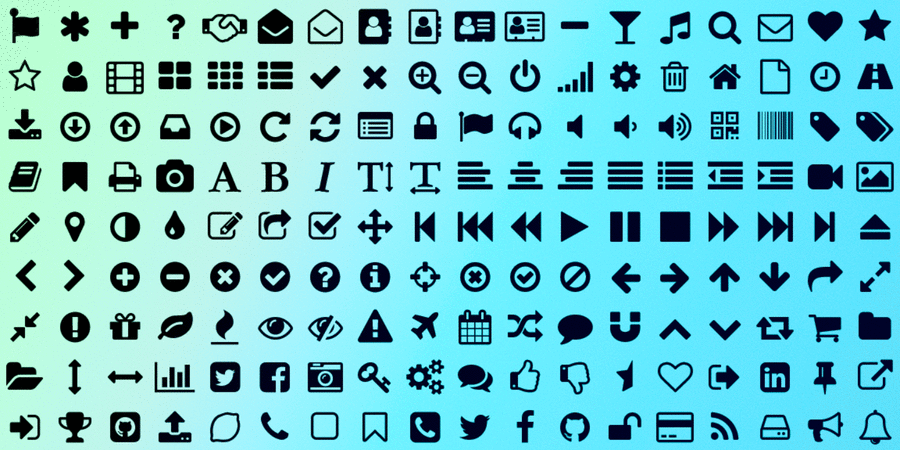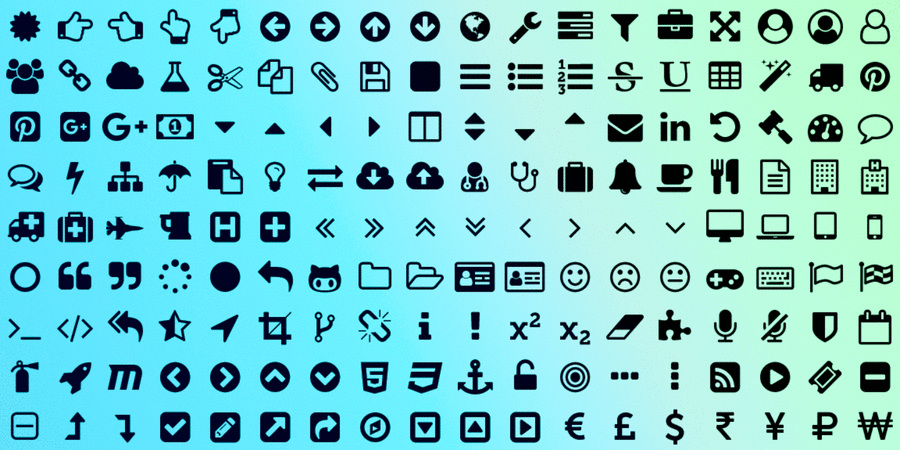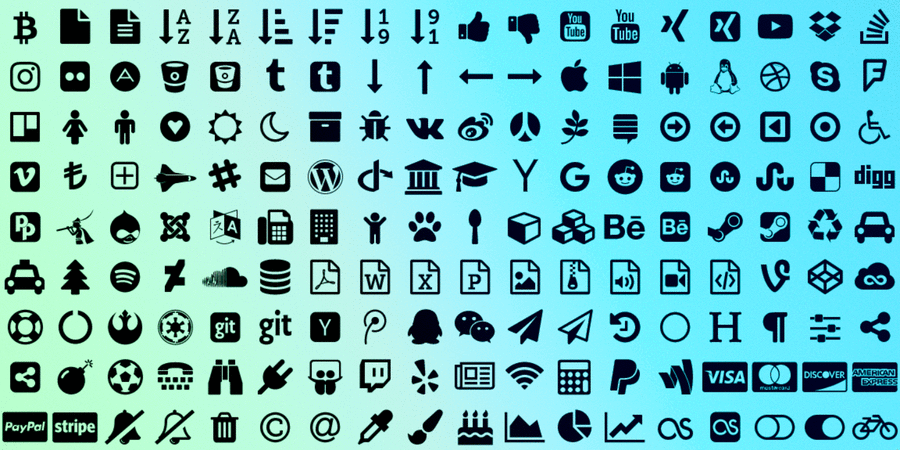
Font Awesome (1 font)
About Font AwesomeFree web font with simple vector pictograms. It contains 675 Icons + CSS toolkit. These are the most common symbols for user interface of websites, online shops, desktop and mobile applications, as well as the city signs, and logos of popular social networks. Font Awesome is useful in web design, application design, and even in print matter, for corporate documentation, business cards, advertising. Typeface was designed by Dave Gandy in 2016 and distributing by SIL OFL 1.1 license for the font and MIT License for CSS toolkit: http://fontawesome.io/license.
Facebook, Twitter, Instagram, Google, Vkontakte, Visa, Windows, MacOS, Linux, Skype, PayPal, YouTube
simple, urban, modern, globalistic, globalized, cosmopolitan, international, comfortable, standard, neutral, business